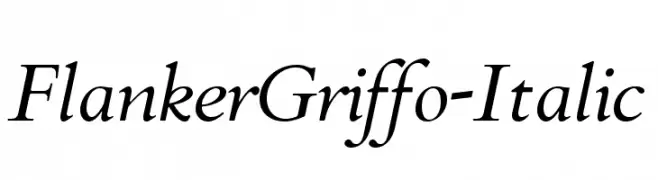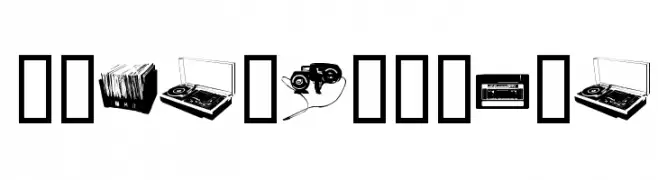
A playful, illustrative font featuring a variety of everyday symbols and hand-drawn numbers.
A playful, bone-themed font with pirate symbols, perfect for adventurous designs.
A bold, angular font inspired by ancient runic alphabets, perfect for mystical or historical themes.
Whimsical display font with letters inside ice cream cones.
A bold, distressed font with a rugged, maritime-inspired aesthetic.
A decorative dingbat font with retro audio equipment icons.
An elegant italic serif font with moderate contrast and refined serifs.
A playful set of food and drink icons with bold outlines and a modern style.
A playful and bold icon set featuring food, drinks, and decorative elements.
A playful, rounded font with smooth curves and a friendly appearance.